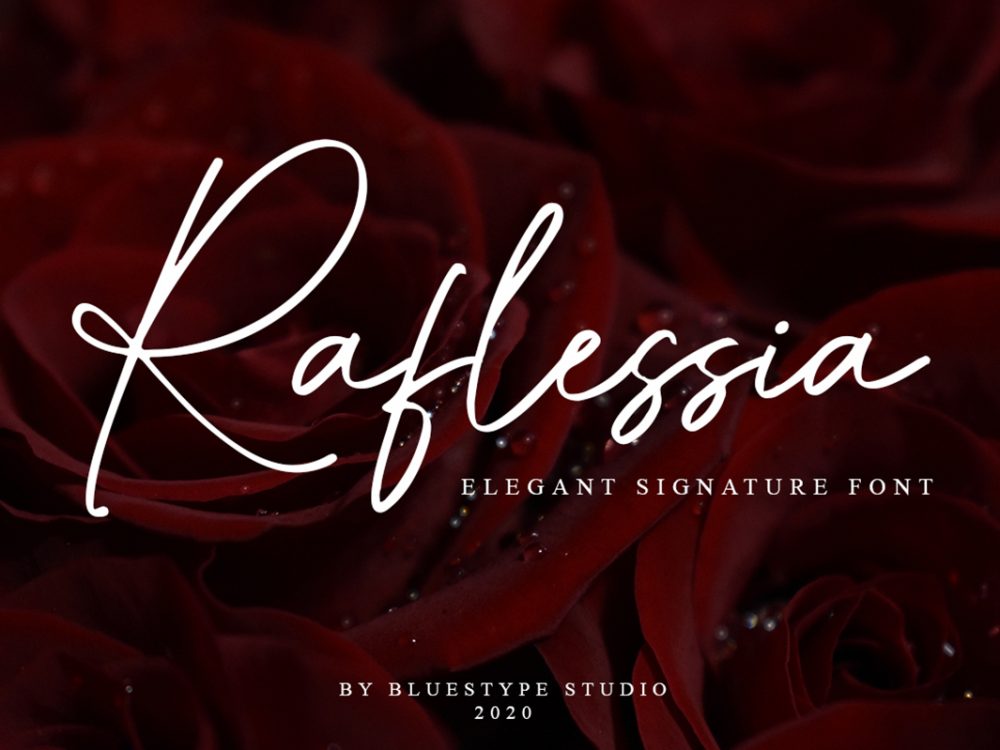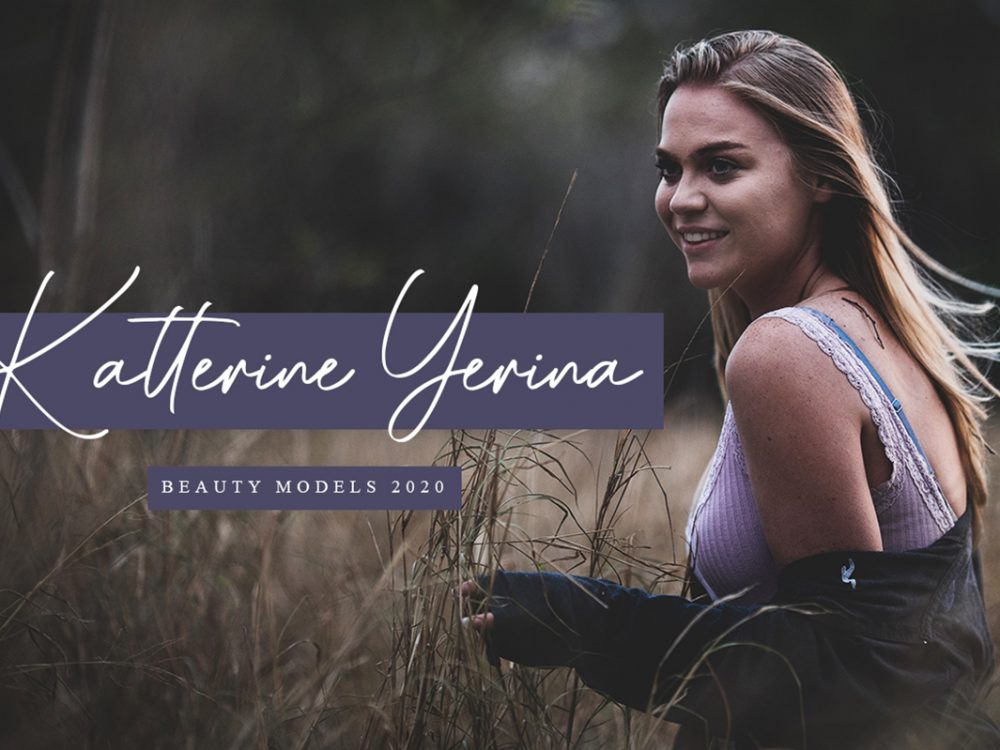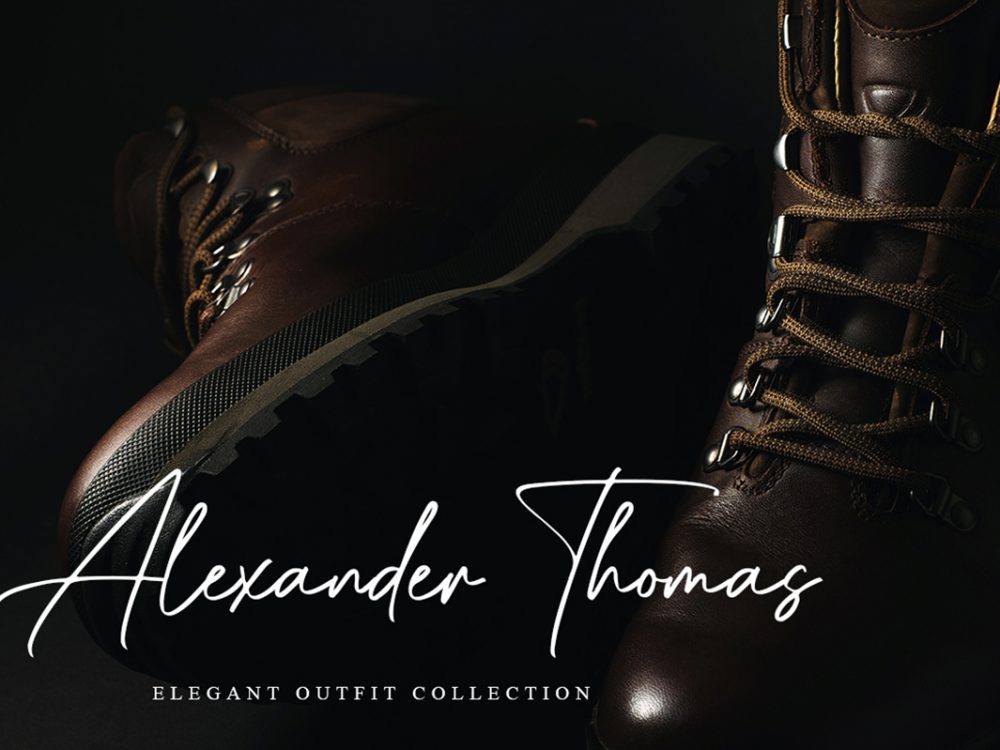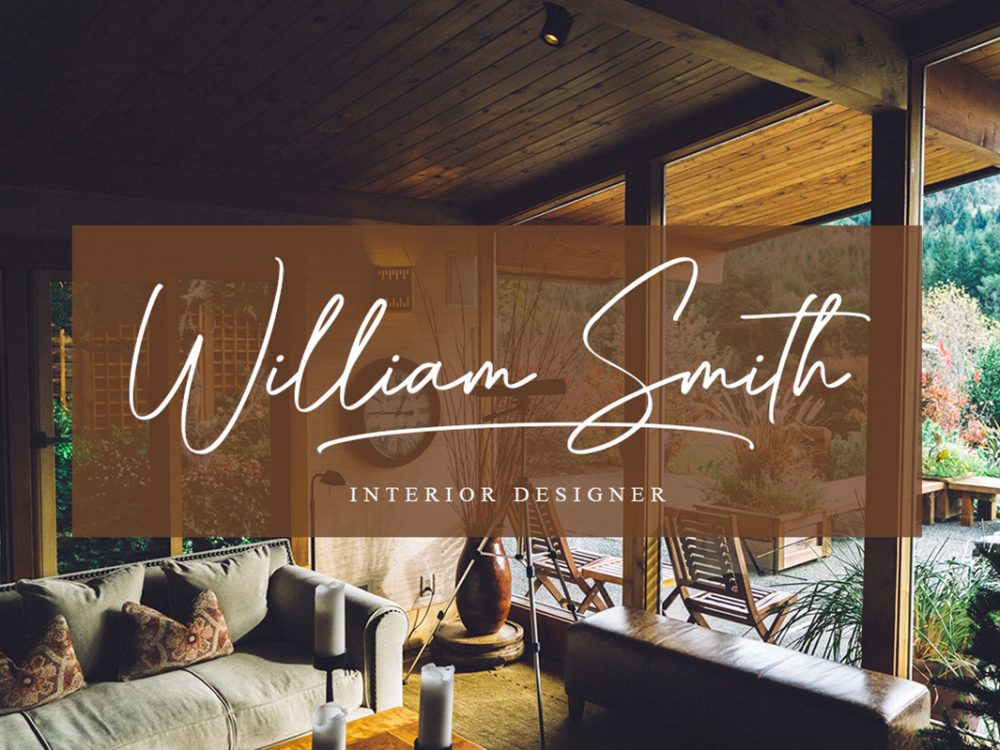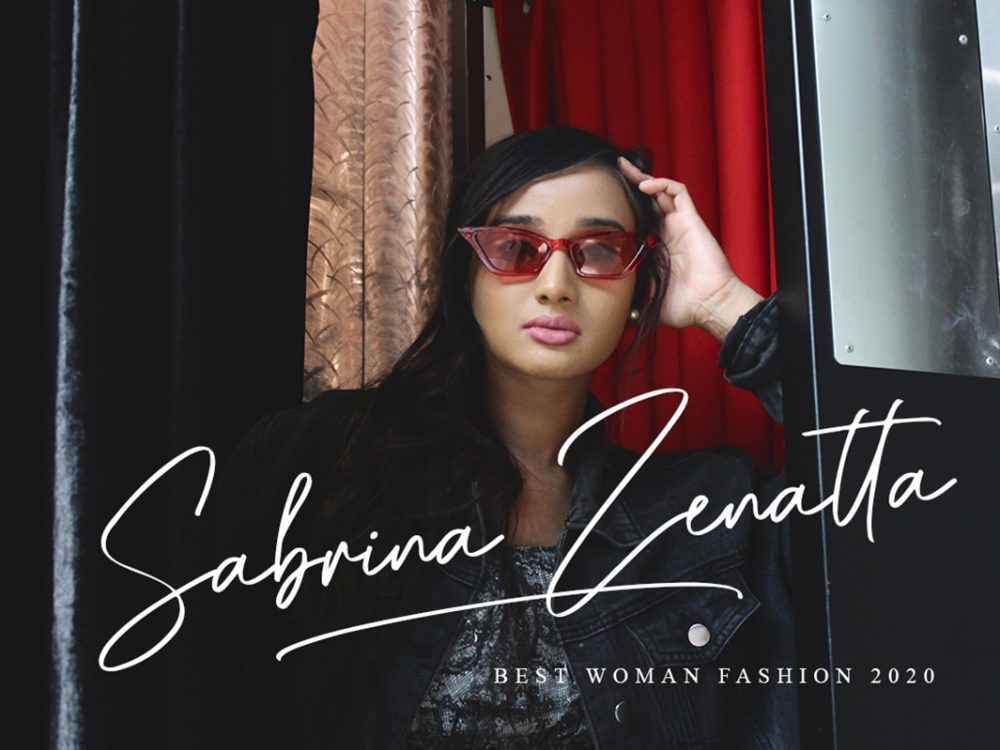
Raflessia Free Font
Raflessia Free Font is an interesting script font that stands out for its stylish calligraphic style and will help you create various design projects in a modern style. You can use this font to create memorable posters, wedding invitations, cards, branding, flyers, and more. Improve the quality and increase the popularity of your design projects using this font. If you like it don’t forget to check out the full version.